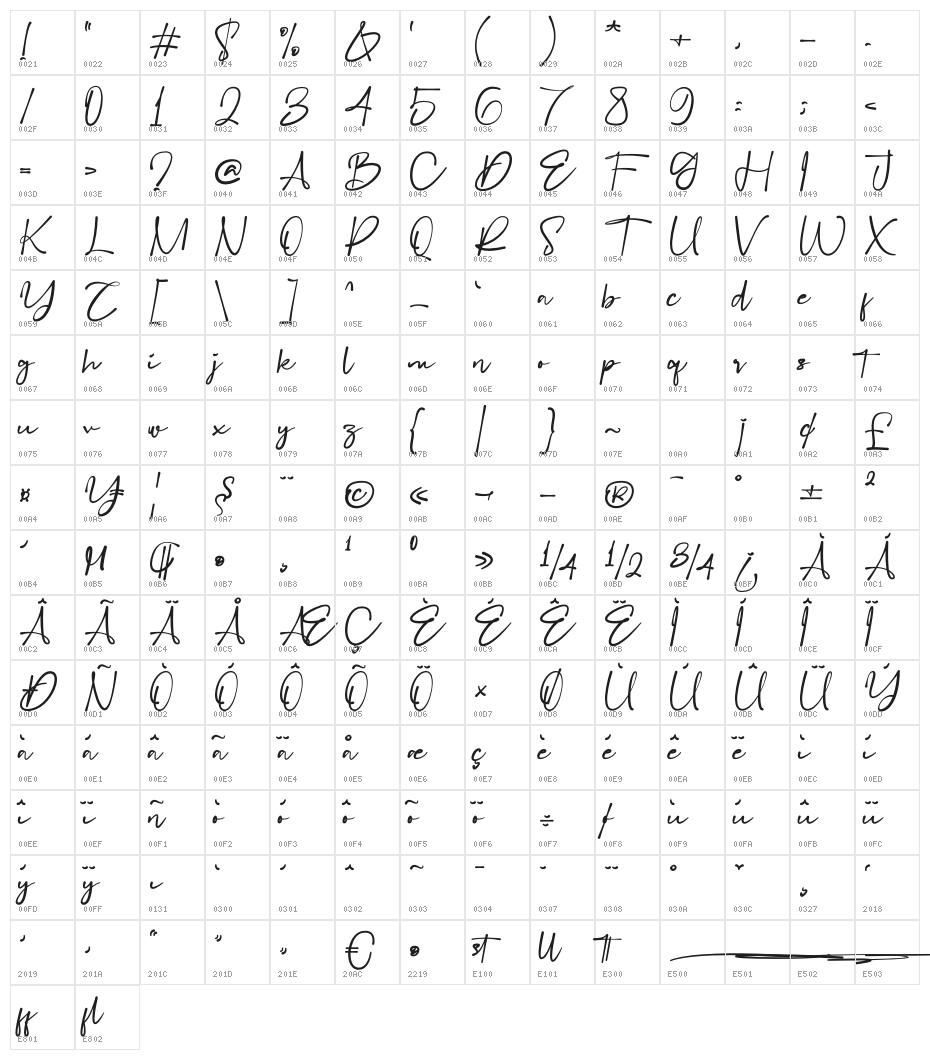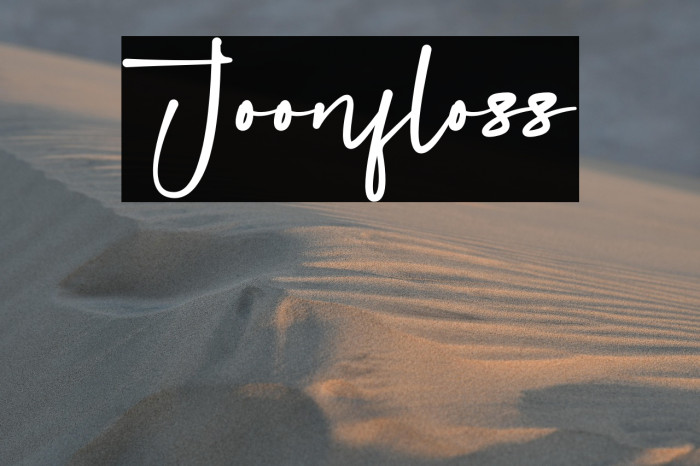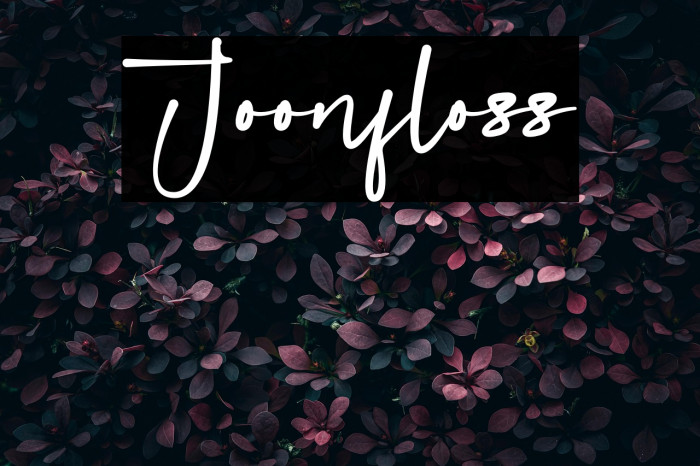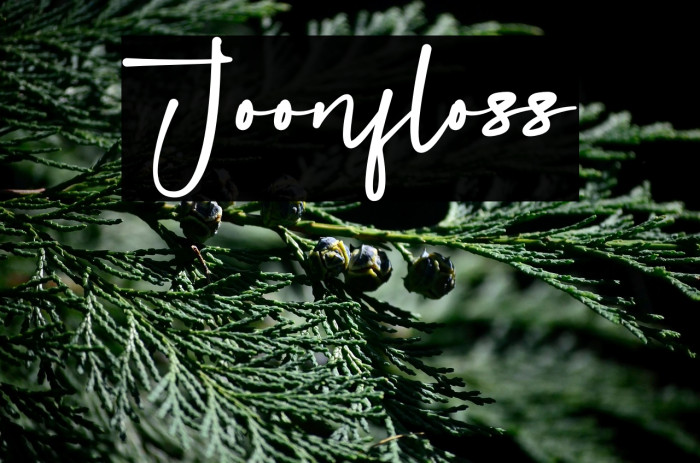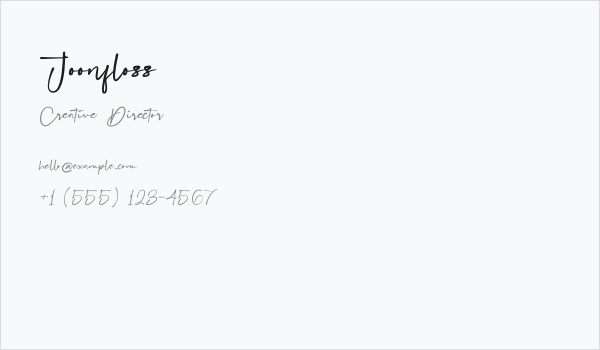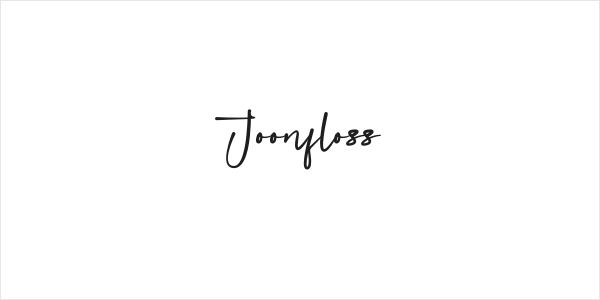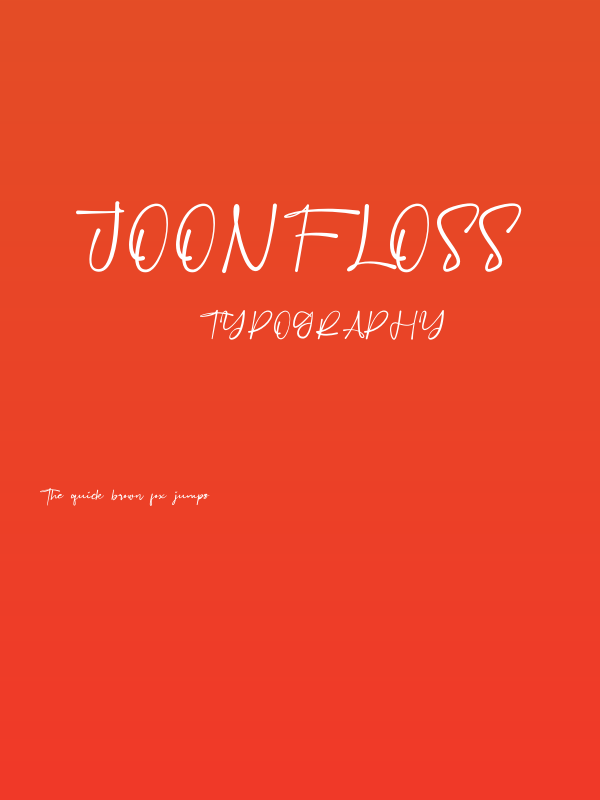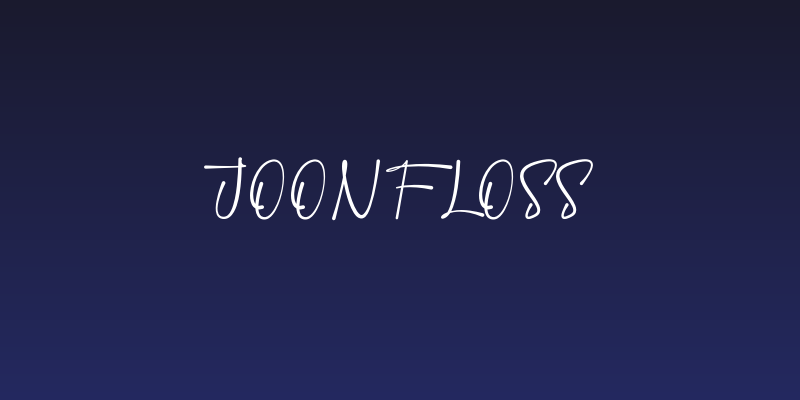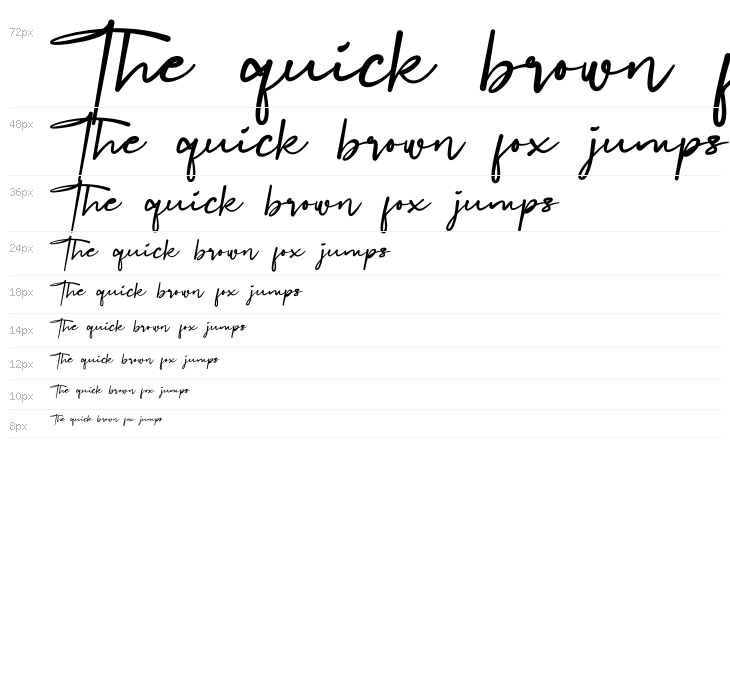
Joonfloss Font
Joonfloss Description
A playful, handwritten script font with fluid, connected strokes and a casual, organic feel. The characters have varying heights and dynamic loops, giving a lively and informal appearance.
| Overall Style | Decorative, Casual, Playful |
| Use Case | Logos, Headlines, Social media, Invitations |
| Proposed Projects | Greeting cards, invitations, branding, social media graphics, quotes, personal blogs. |